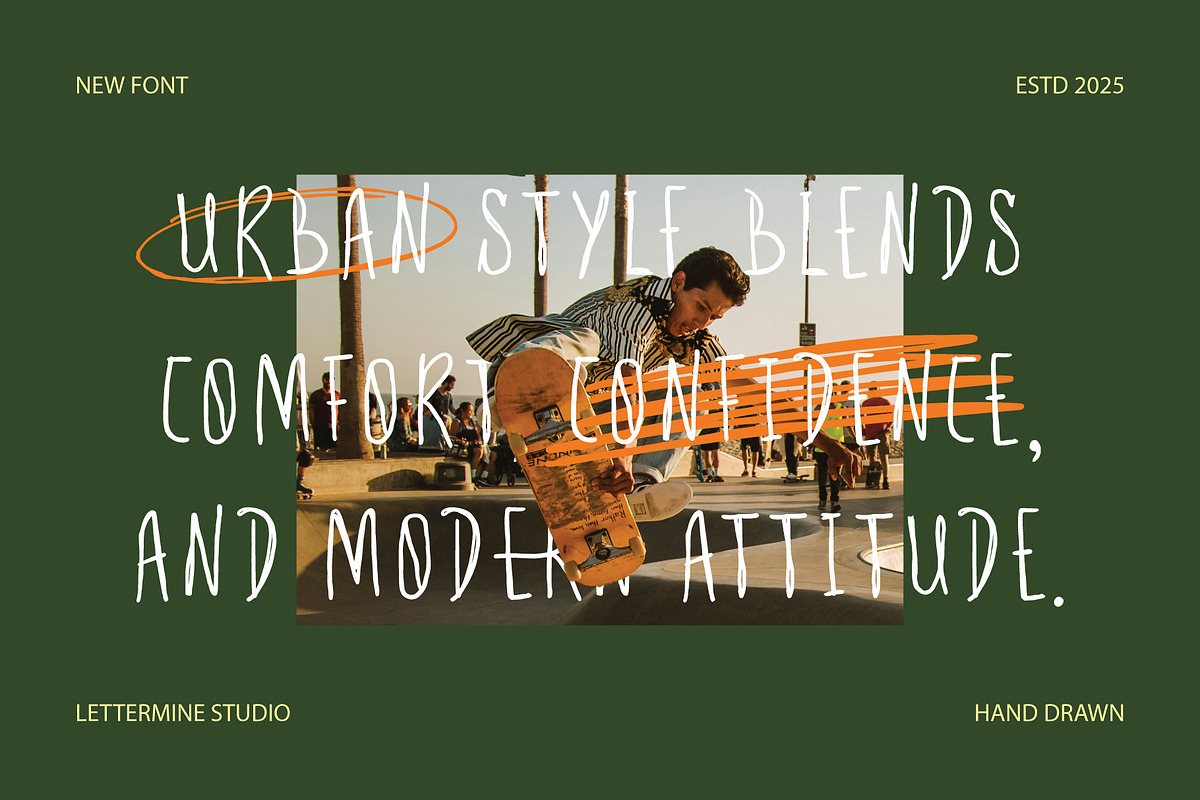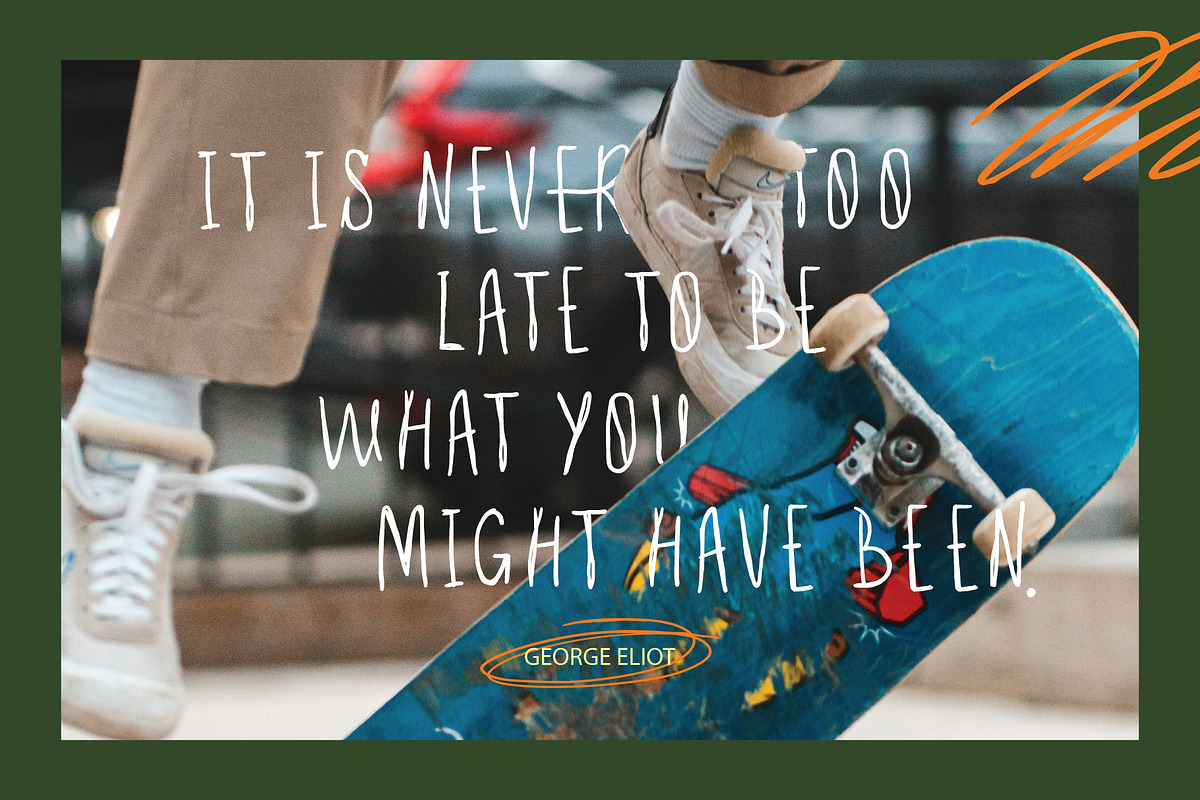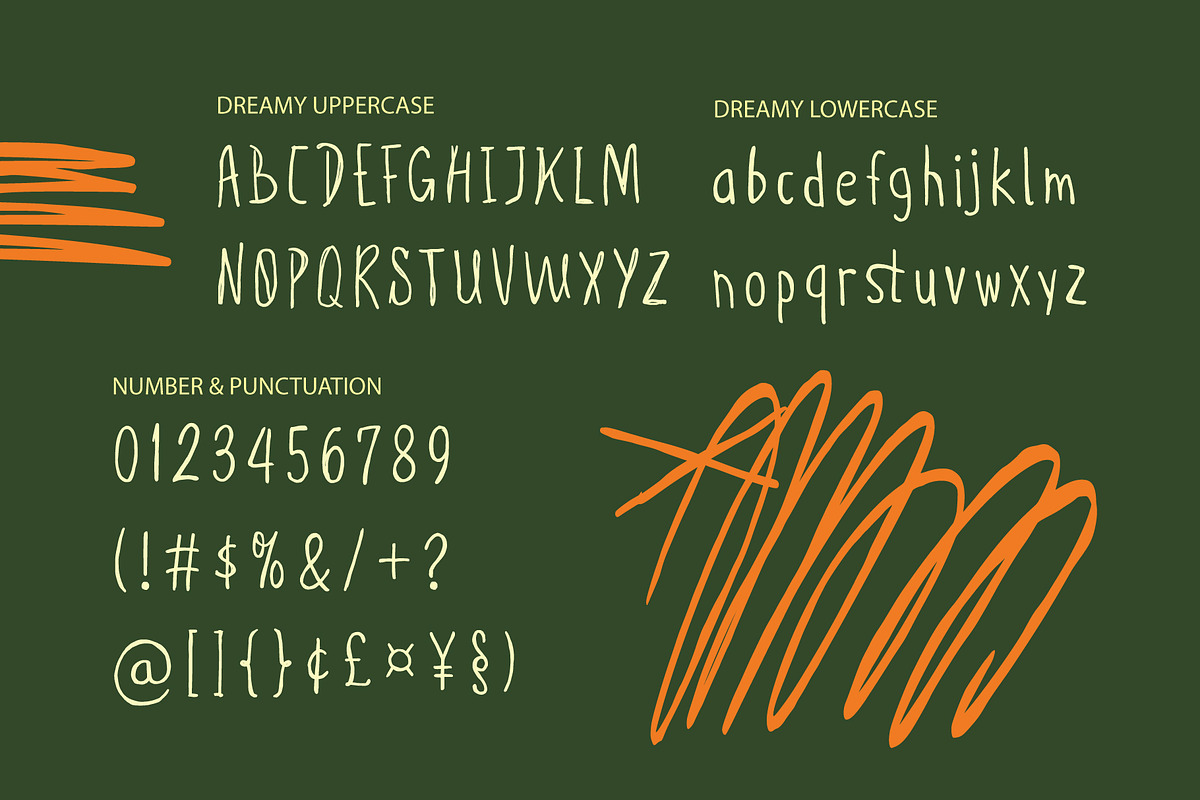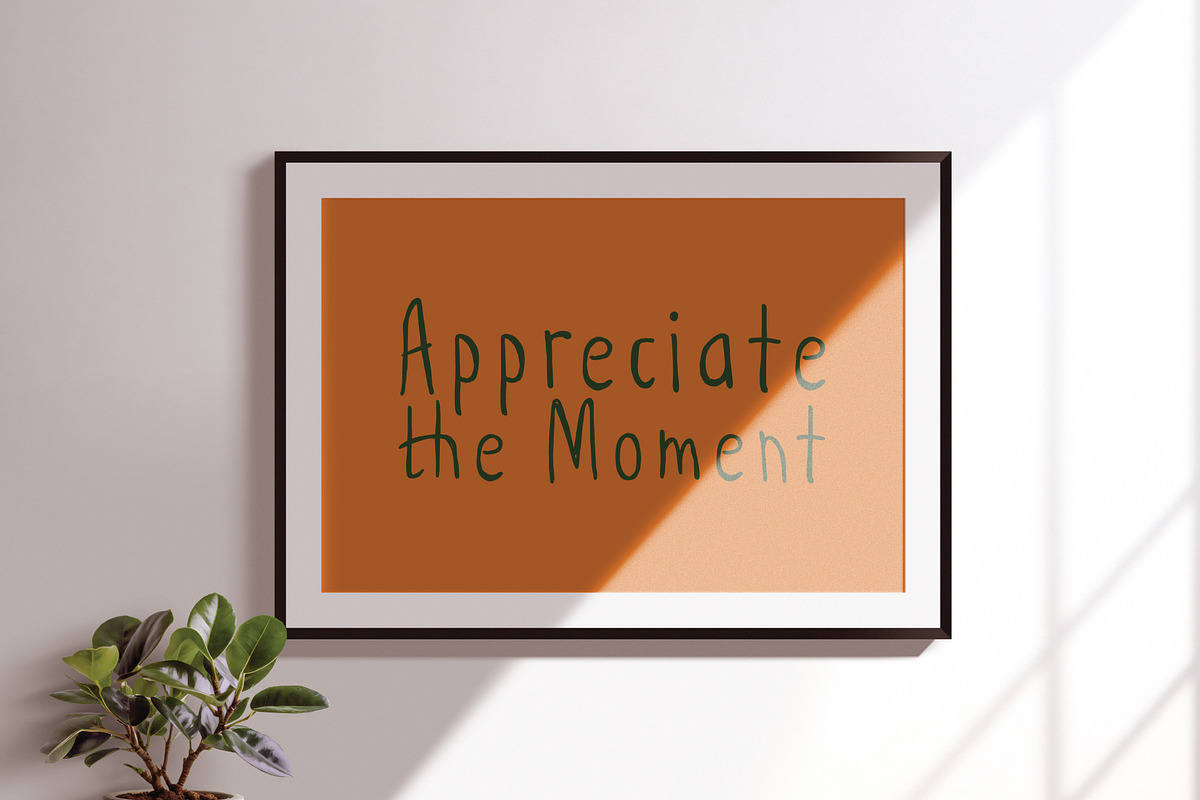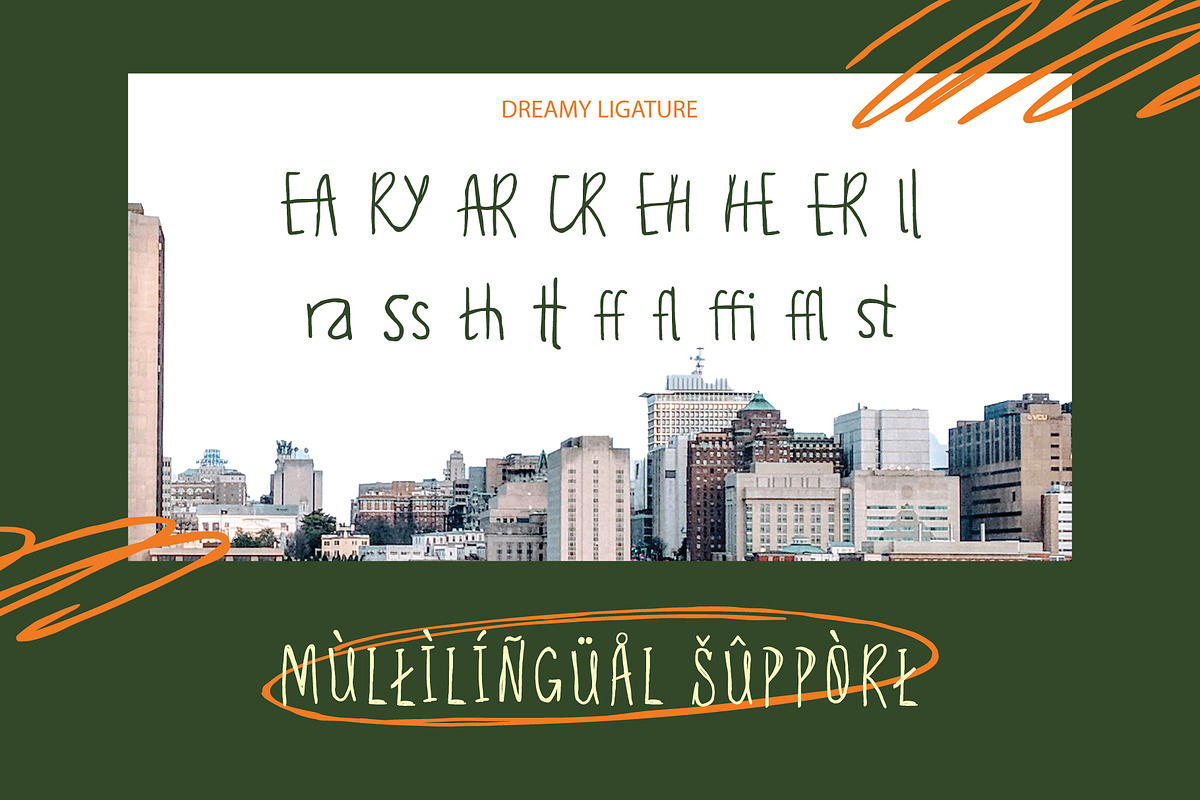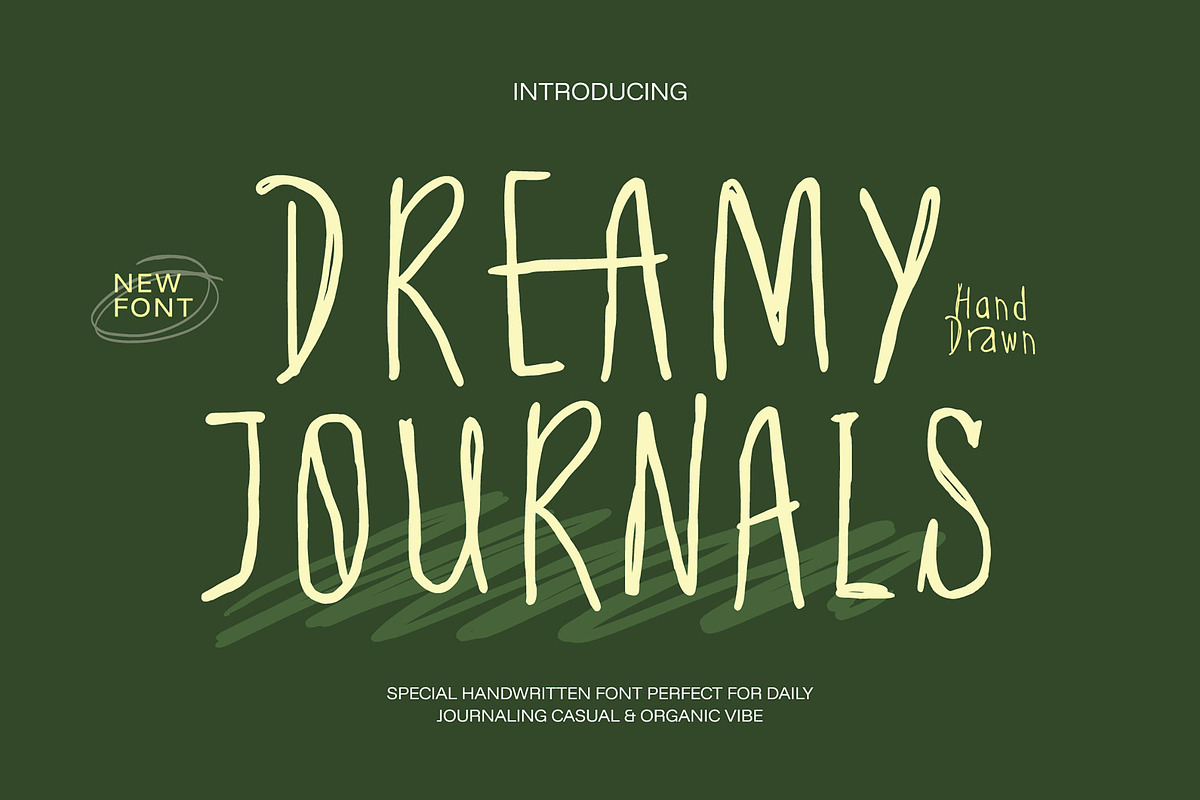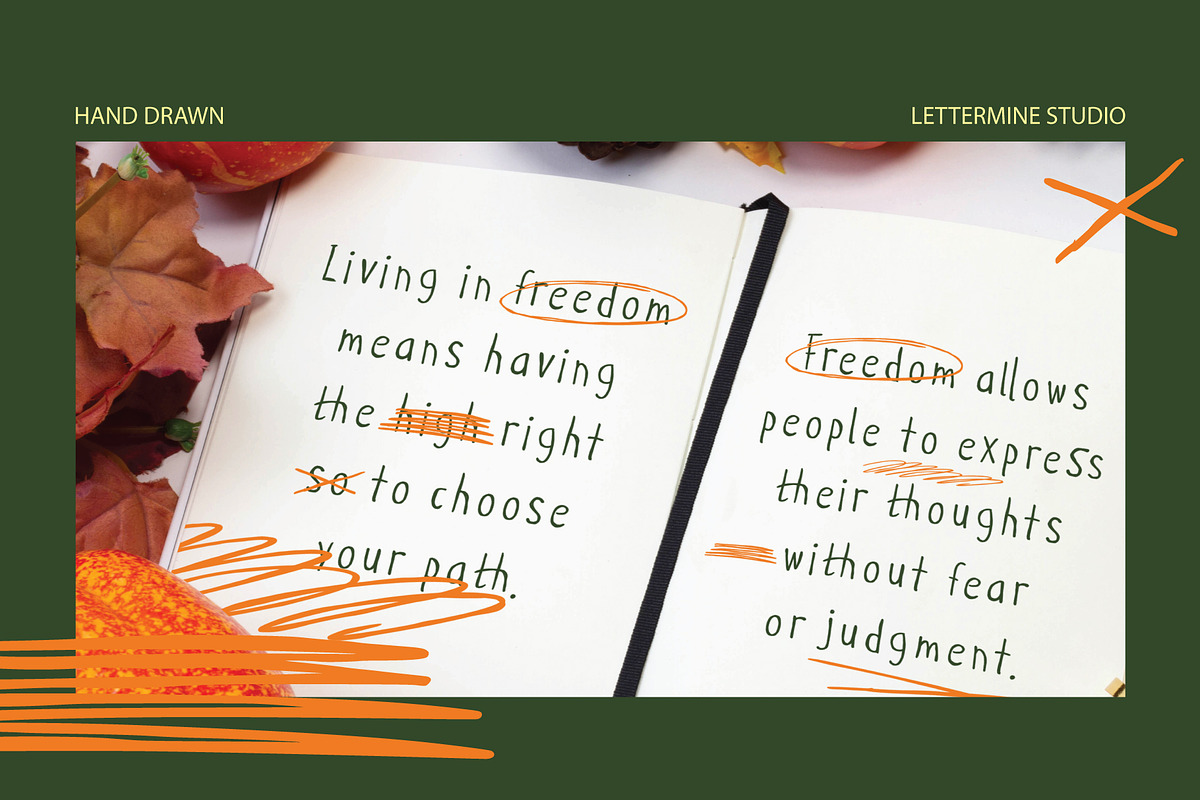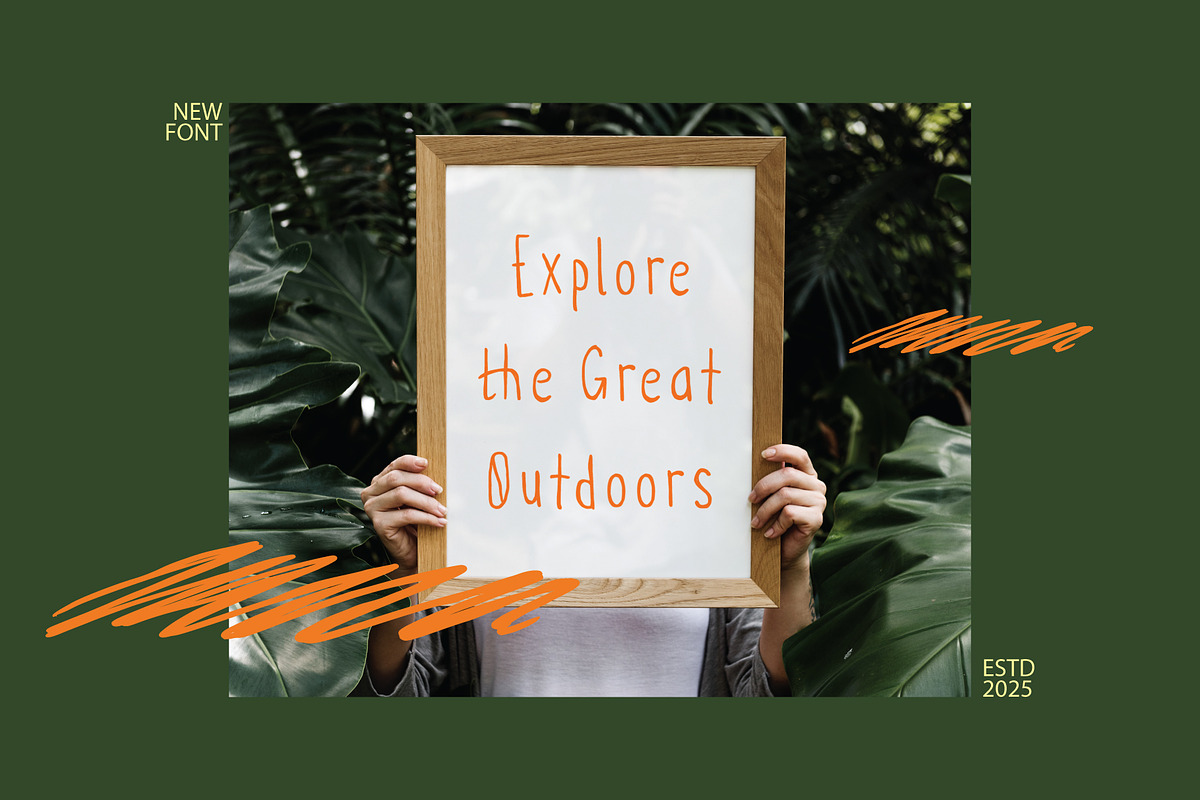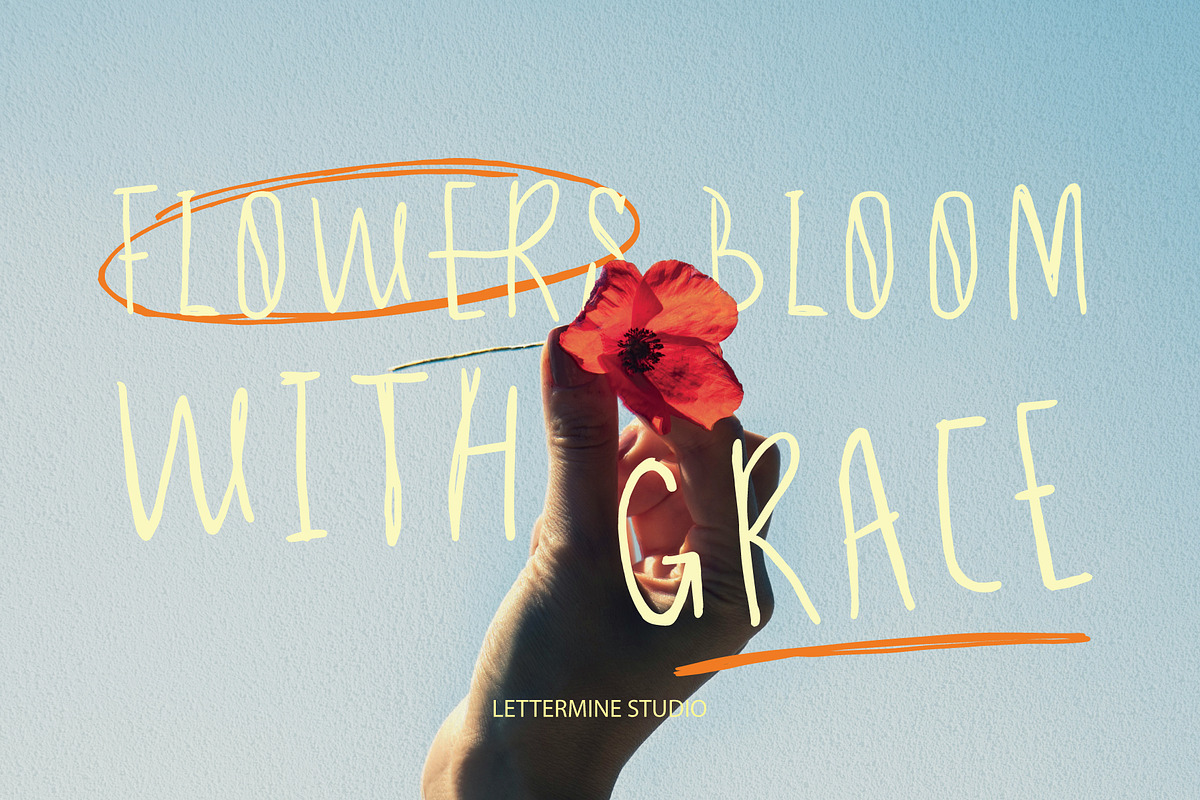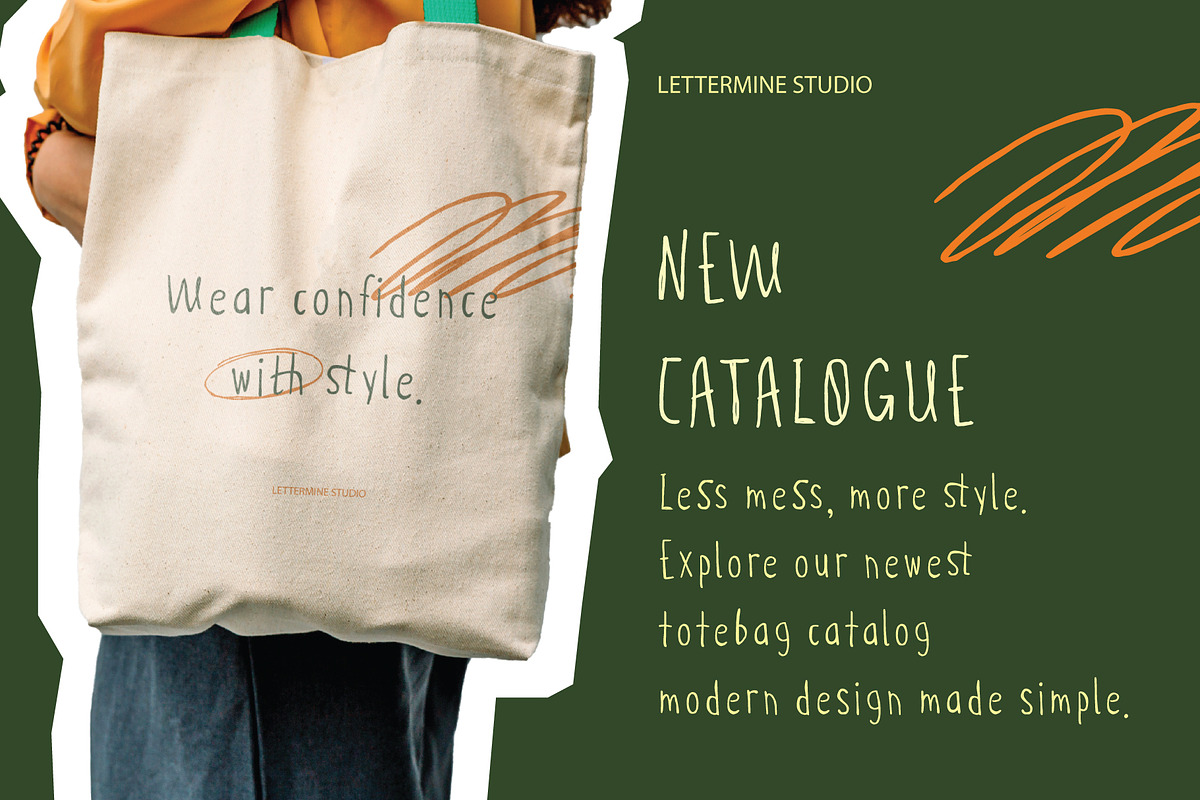
Dreamy journals - Casual Handwritten
Dreamy Journals – Casual Handwritten Journal Font
Dreamy Journals is a casual and organic handwritten font crafted for moments of calm and creativity. With its imperfect strokes and natural flow, this typeface brings a personal, human touch to your design work—perfect for journaling pages, planners, scrapbooking, self-care content, or any project that needs a warm, authentic feel.
Whether you’re designing for a wellness brand, a digital notepad, or an inspirational quote graphic, Dreamy Journals offers a relaxed yet intentional aesthetic. It comes with basic punctuation, multilingual characters, and is fully PUA encoded—accessible in any design software.
Hand-drawn and casual letterforms
Organic, imperfect strokes